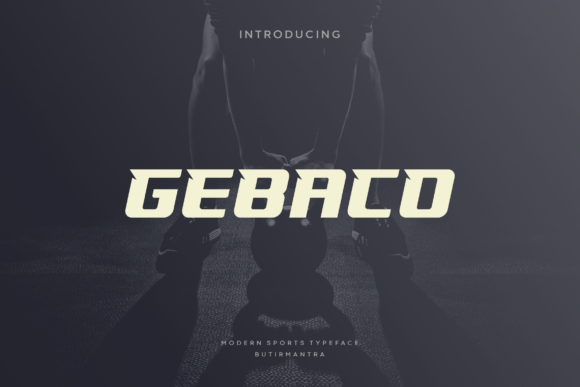
Introducing Gebaco Font: The Ultimate Display Font for Creative Expression
Are you tired of using the same old fonts for your creative projects? Look no further than Gebaco Font, a stylish and cool display font that’s sure to take your designs to the next level. Masterfully designed to become a true favorite, Gebaco Font has the potential to bring each of your creative ideas to the highest level. In this article, we’ll dive into the features and benefits of Gebaco Font, and explore how it can elevate your typography and design.
What is Gebaco Font?
Gebaco Font is a modern display font that’s perfect for creative projects that require a touch of elegance and sophistication. Its unique design and stylish aesthetic make it an excellent choice for designers, artists, and crafty individuals looking to add a personal touch to their work. Whether you’re creating a logo, poster, or social media graphic, Gebaco Font is sure to make a statement.
Key Features of Gebaco Font
- Stylish and Cool Design: Gebaco Font boasts a sleek and modern design that’s sure to turn heads. Its unique letterforms and stylish aesthetic make it perfect for creative projects that require a touch of elegance and sophistication.
- High-Quality Typography: Gebaco Font features high-quality typography that’s optimized for both print and digital use. Its clear and legible letterforms ensure that your message is conveyed with clarity and precision.
- Versatile and Flexible: Gebaco Font is a versatile font that can be used for a wide range of creative projects, from logos and posters to social media graphics and presentations.
Benefits of Using Gebaco Font
So why choose Gebaco Font for your creative projects? Here are just a few benefits of using this amazing display font:
- Adds Visual Impact: Gebaco Font adds a touch of elegance and sophistication to your designs, making them stand out from the crowd.
- Enhances Creativity: With Gebaco Font, you can express your creativity and bring your ideas to life in a unique and stylish way.
- Perfect for Branding: Gebaco Font is perfect for branding and advertising projects, where a stylish and memorable font can make all the difference.
- Easy to Read: Despite its stylish design, Gebaco Font is easy to read and understand, making it perfect for use in a wide range of creative projects.
- Use Gebaco Font as a Headline Font: Gebaco Font is perfect for use as a headline font, where its stylish design and visual impact can really shine.
- Pair Gebaco Font with Other Fonts: Experiment with pairing Gebaco Font with other fonts to create a unique and stylish typography combination.
- Use Gebaco Font for Branding and Advertising: Gebaco Font is perfect for use in branding and advertising projects, where a stylish and memorable font can make all the difference.
In conclusion, Gebaco Font is a stylish and cool display font that’s perfect for creative projects that require a touch of elegance and sophistication. Its unique design, high-quality typography, and versatility make it an excellent choice for designers, artists, and crafty individuals looking to add a personal touch to their work. With Gebaco Font, you can bring your creative ideas to the highest level and create stunning designs that leave a lasting impression.